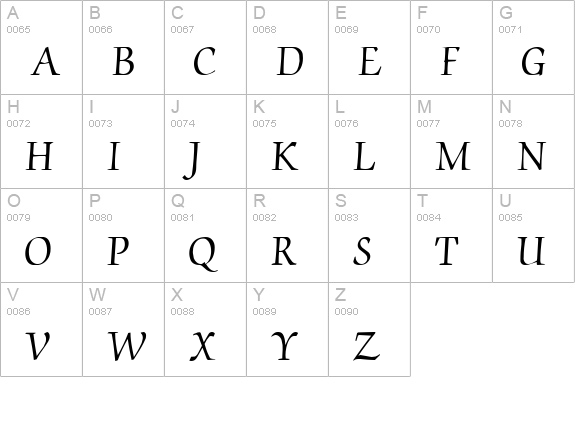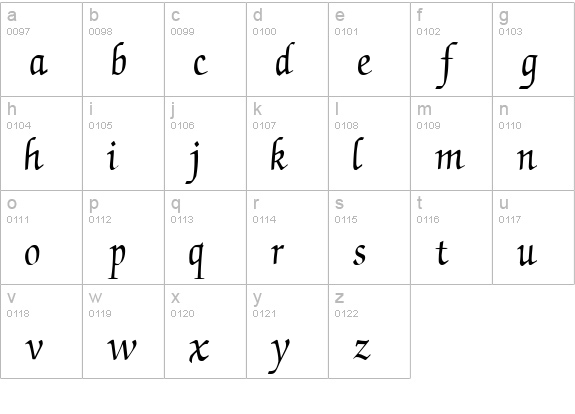
Chancery Font Details
Chancery font is a timeless and elegant typeface that exudes sophistication and charm. With its delicate and flowing curves, Chancery is perfect for adding a touch of refinement to any project. Whether used for invitations, wedding stationery, or formal documents, this font conveys a sense of grace and class. The best part? Chancery font is completely free to download at FontsMarket.com. Now you can easily access this beautiful font and elevate your designs without breaking the bank. Don't miss out on the opportunity to enhance your projects with the timeless beauty of Chancery font, available for free at FontsMarket.com.